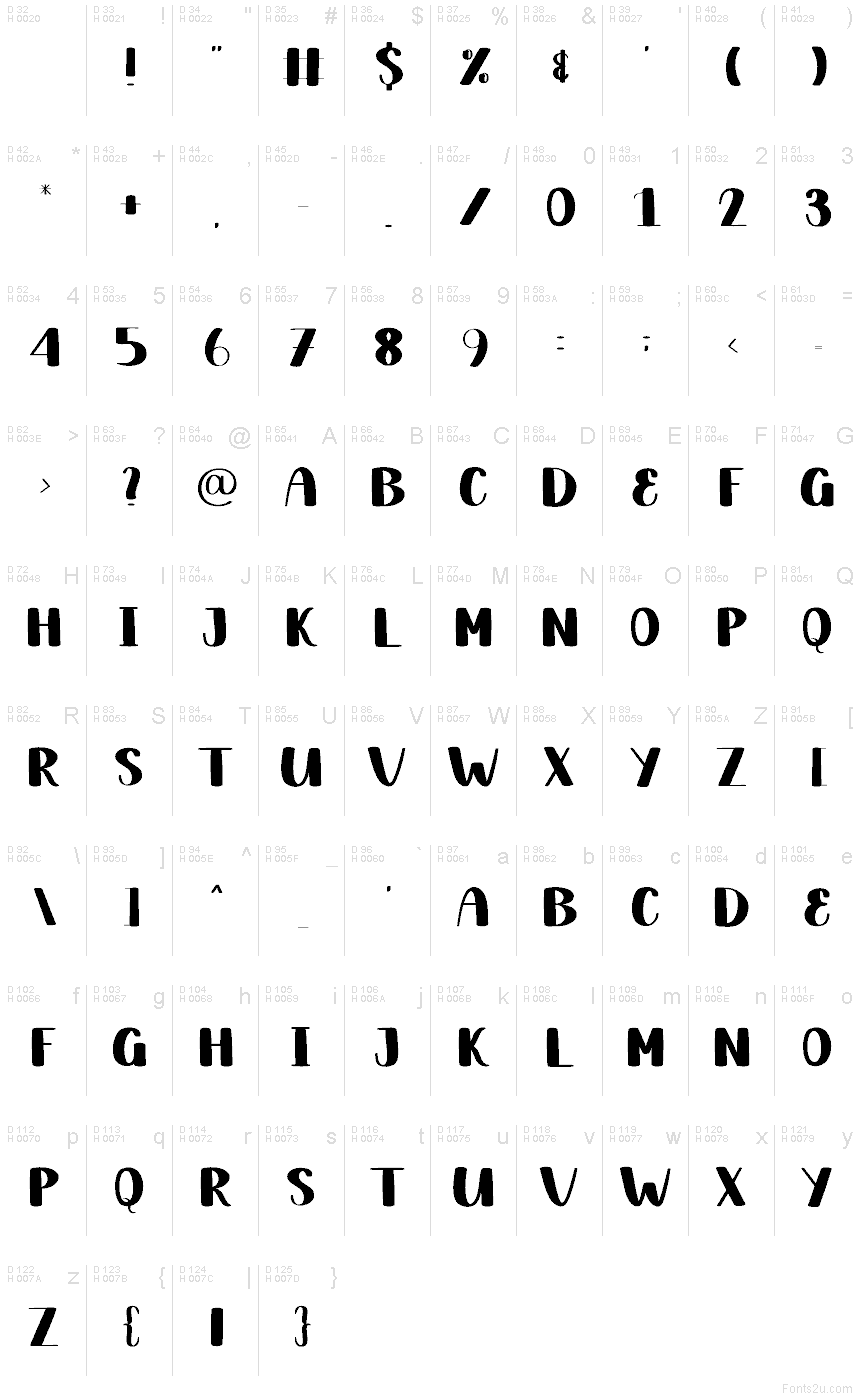
Choco Drink
Choco Drink font is a bold brush style free font designed by Scratchones. A scratchy imperfect appearance with a genuinely retro feel gives it an authentic hand-drawn effect that can’t be ignored. This classic yet modern textured font has strong character and it carries the power to truly shine in any project.
Elevate your next posters, magazine covers and pages, brochures, advertisements, answers websites with this typeface. Logo designs, branding elements and packaging graphics also go well with Choco Drink. Get creative on social media posts or interface website parts like headers for improved results.